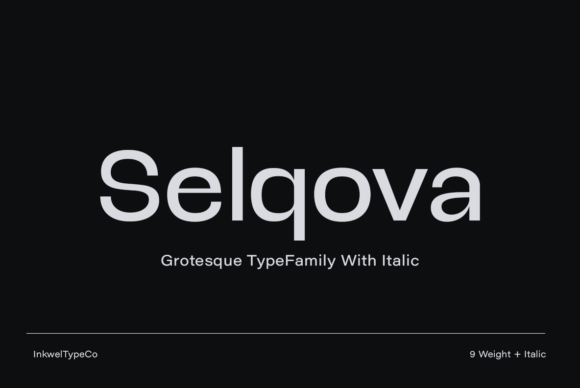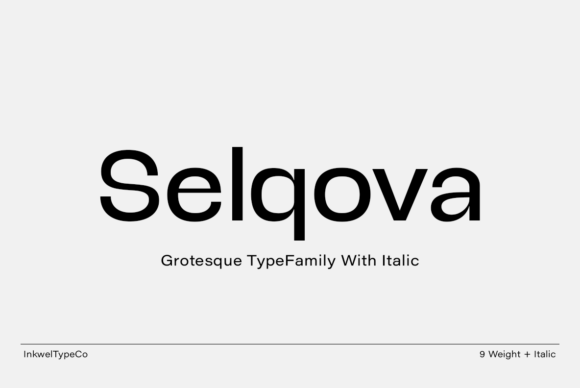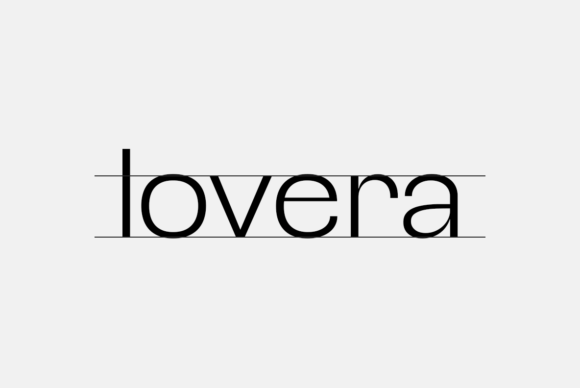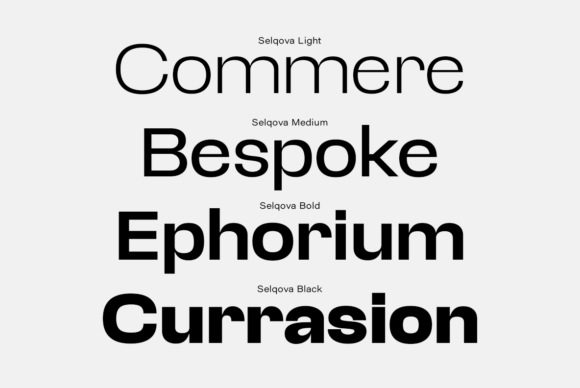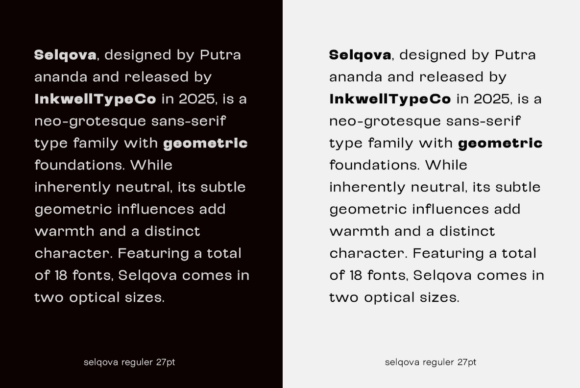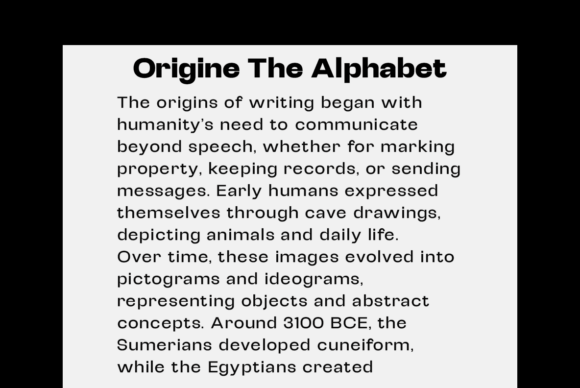
Introduction to Selqova Font
Selqova is a modern grotesque typeface designed for versatility and impact.
With a clean, bold, and contemporary look, it excels in both digital and print applications Its 9 weights, plus italics, make it ideal for branding, editorial, and display purposes.
Key Features of Selqova Font
Why Choose Selqova Font?
Selqova Font offers exceptional quality and versatility, making it a valuable addition to your design toolkit. Whether you’re creating for personal projects or commercial use, Selqova Font delivers professional results.